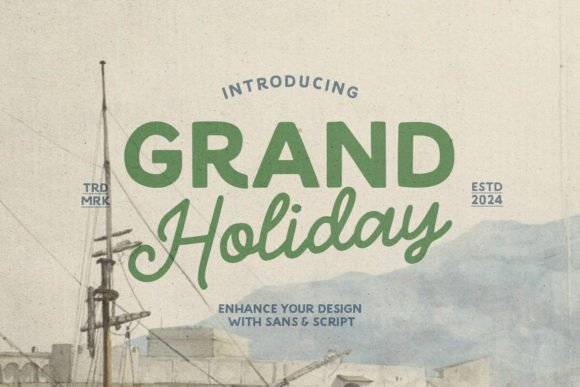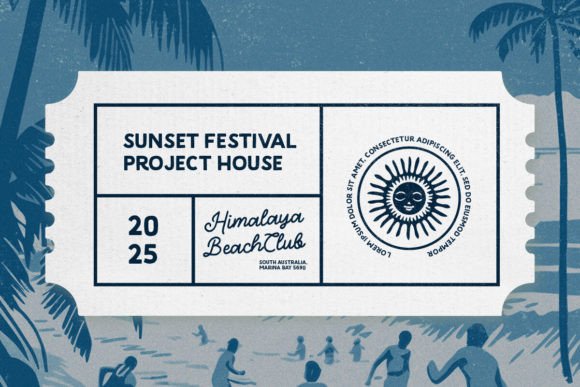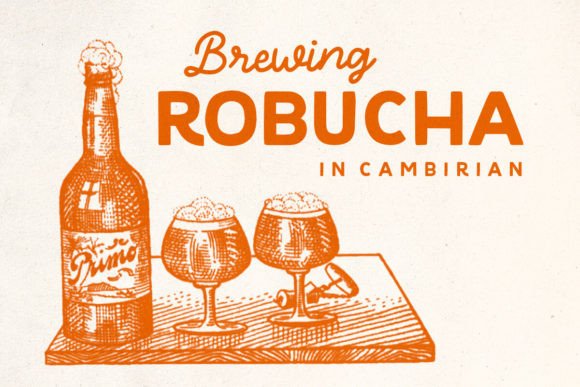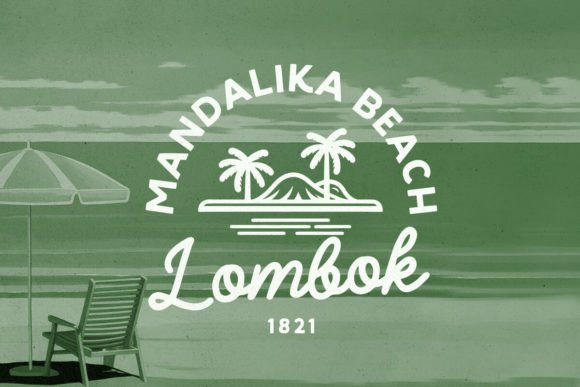
Grand Holiday Font
About the Grand Holiday Font
Elevate your designs with Grand Holiday Font, a font that combines sophistication with readability. Grand Holiday is a travel font duo that contains minimalist sans and monoline script that is made by hand lettering style. You can use this font for any purpose such as posters, book covers, logos, branding, and quotes as well. This font is suitable for projects that have outdoor or adventure themes.
Grand Holiday’s minimalist sans serif is ideal for headlines, logos, and short, impactful text on posters or packaging. The monoline script excels in short quotes, branding elements, and as an accent within a larger design. However, avoid using either style for extended body text or UI elements; the limited x-height and stroke weight will hinder readability.
The sans serif pairs well with geometric sans serifs for a modern, clean aesthetic, or with warmer, more traditional serifs for a balanced contrast. The script complements both serif and sans-serif fonts, offering a touch of elegant handwritten flair. Consider pairing it with a neutral sans serif for a versatile and accessible combination.
Grand Holiday projects an adventurous yet sophisticated personality. It’s well-suited for brands focused on travel, exploration, or outdoor activities, emphasizing a sense of refined freedom and excitement.
Grand Holiday Font Example